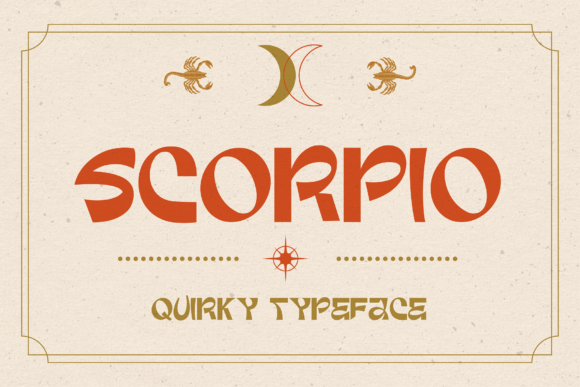
Introducing Scorpio Font, a captivating and one-of-a-kind display typeface crafted by the talented team at HipFonts. Inspired by the mystical world of astrology, Scorpio is a font that will surely leave a lasting impression on your designs.
With its unique shapes and curves, Scorpio stands out from the crowd, making it the perfect choice for those who crave originality and creativity in their projects. This font is not your average typeface; it is a work of art that combines beauty and functionality seamlessly.
Scorpio is more than just a font; it is a storytelling tool that adds depth and character to your designs. Its quirky and distinctive style captures attention instantly, making it suitable for a wide range of design projects. Whether you're working on branding, web design, book covers, advertising, packaging, or stationary, Scorpio will effortlessly elevate your creations.
Legibility is key when it comes to fonts, and Scorpio excels in this aspect. Each letter is carefully crafted to ensure readability without compromising its unique charm. Your audience will have no trouble deciphering your message while being captivated by the font's personality.
Scorpio is a font that speaks to the emotions. Its enchanting curves and elegant strokes evoke a sense of wonder and intrigue. It adds an element of magic to any design, making it perfect for projects that aim to create a lasting impact on the viewer.
The versatility of Scorpio is another reason why it deserves a place in your collection. It adapts effortlessly to various design styles, allowing you to unleash your creativity without limitations. With Scorpio, the possibilities are endless, and your imagination is the only boundary.
Don't settle for ordinary fonts that blend in with the crowd. Let Scorpio be your secret weapon to stand out and make a statement. Its captivating and emotional nature will leave a lasting impression on your audience, ensuring that your designs are remembered long after they are seen.
So, if you're in search of a peculiar typeface that will elevate your designs to new heights, look no further than Scorpio Font. Let this mesmerizing font take your creativity to the next level and leave a lasting impression on anyone who encounters your work.